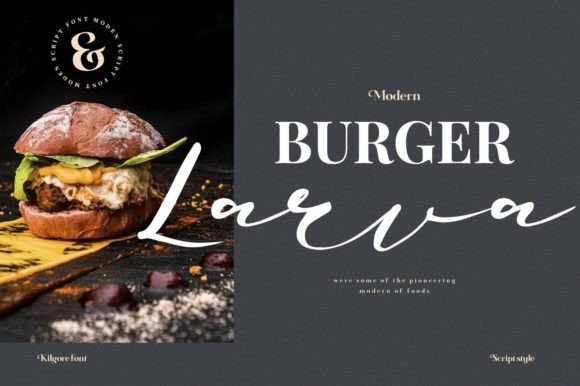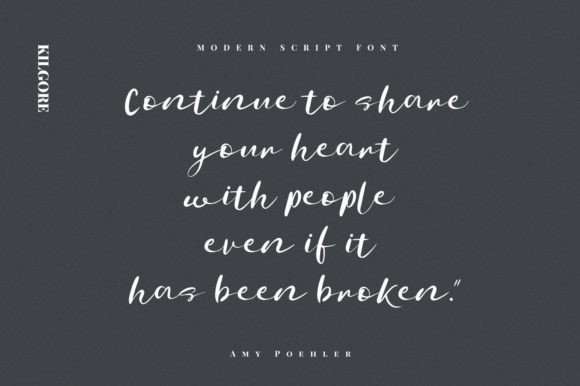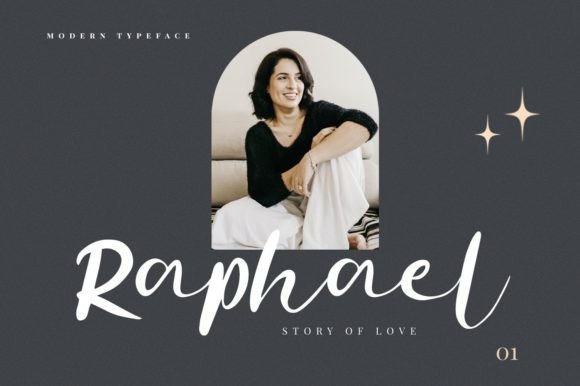
Introduction to Kilgore Font
Have you ever stared at a blank canvas, desperately seeking the perfect font to bring your creative project to life? I’m sure many designers can relate to this moment of frustration. But what if I told you there’s a font that can elevate your design to new heights? Meet the Kilgore Font, a luxury script font that’s about to become your new go-to design resource.
With its unique style and high-quality design, the Kilgore Font is perfect for creating stunning designs that stand out from the crowd. Whether you’re working on a branding project or designing a product, this font is sure to impress. And the best part? You can download it for free, complete with a transparent background that’s perfect for creative projects.
So, what makes the Kilgore Font so valuable for designers? Its versatility and high-quality design make it a must-have for any creative project. From logos to brochures, this font is sure to add a touch of elegance and sophistication to your work.
Key Features of Kilgore Font
- Designed to be highly legible and versatile, suitable for a variety of applications
- Perfect for designers looking for a unique, high-quality font for their next creative project
Honest Review: Kilgore Font
As a designer, I’m always on the lookout for high-quality design resources to elevate my creative projects. The Kilgore Font is one such resource that caught my attention, and I’m excited to share my honest review.
What works well: ✨ The Kilgore Font has a unique, bold aesthetic that’s perfect for titles and headings. Its modern design makes it an excellent choice for creative projects that require a touch of sophistication. The font also comes with a transparent background, which is a bonus for designers who want to customize their designs.
What doesn’t: ⚠️ One of the limitations of the Kilgore Font is that it’s not suitable for large blocks of text. Its bold design can be overwhelming, and it’s best used sparingly to add emphasis.
Overall impression: I’m impressed with the Kilgore Font’s quality and design. It’s a great resource for designers who want to add a touch of modernity to their projects. While it has some limitations, it’s a solid choice for creative projects that require a bold, eye-catching font.
- Unique, bold aesthetic
- Perfect for titles and headings
- Modern design
For optimal results, use the Kilgore Font in conjunction with a high-contrast background to make your design stand out. Experiment with different font sizes and styles to add depth and visual interest to your project.
The Kilgore Font is perfect for a variety of creative projects, including logos, brochures, posters, and social media graphics. Its unique design and transparent background make it a popular choice among designers and marketers.